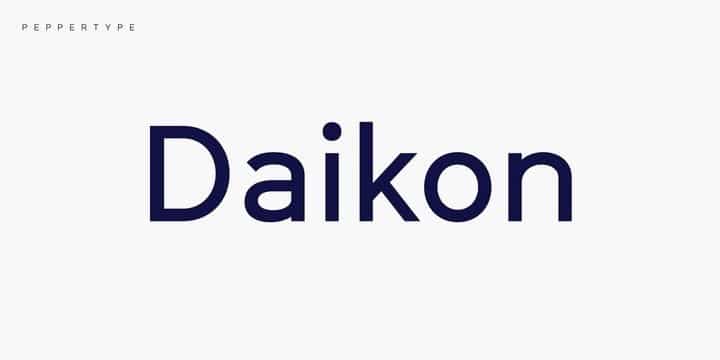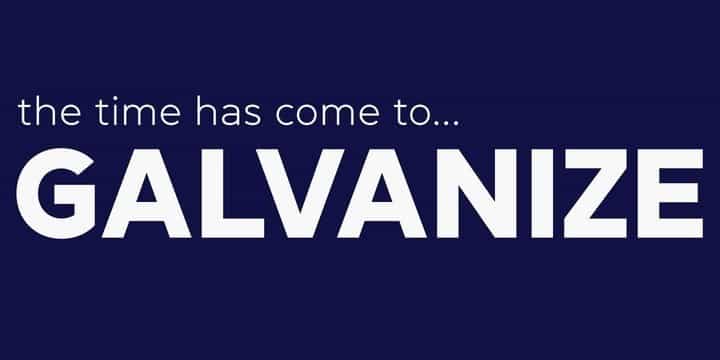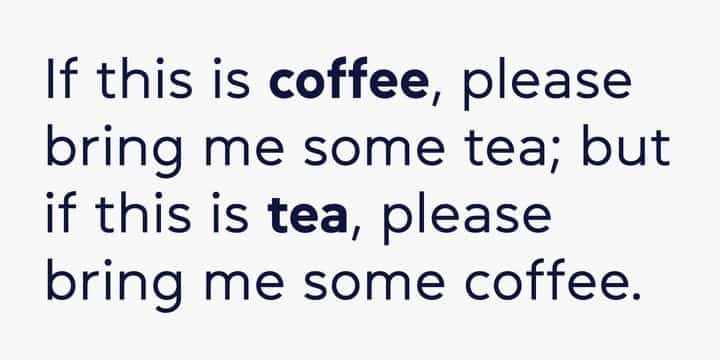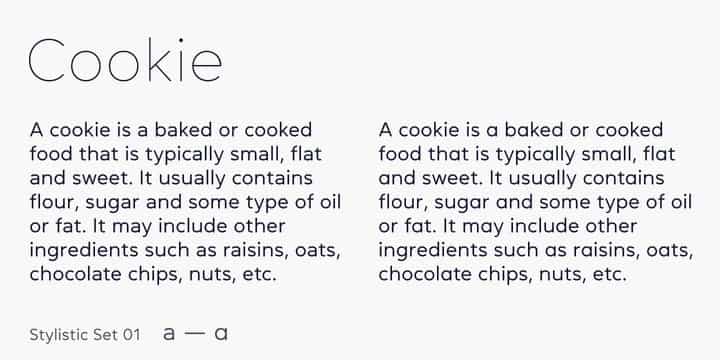
Daikon is an innovative, elegant typeface, created exclusively for you. Perfect for anyone searching for an eye-catching font with large characters and high readability levels. Ideal for large headings, body text and advertisements; an essential font which provides your designs with a stylish yet contemporary appearance.